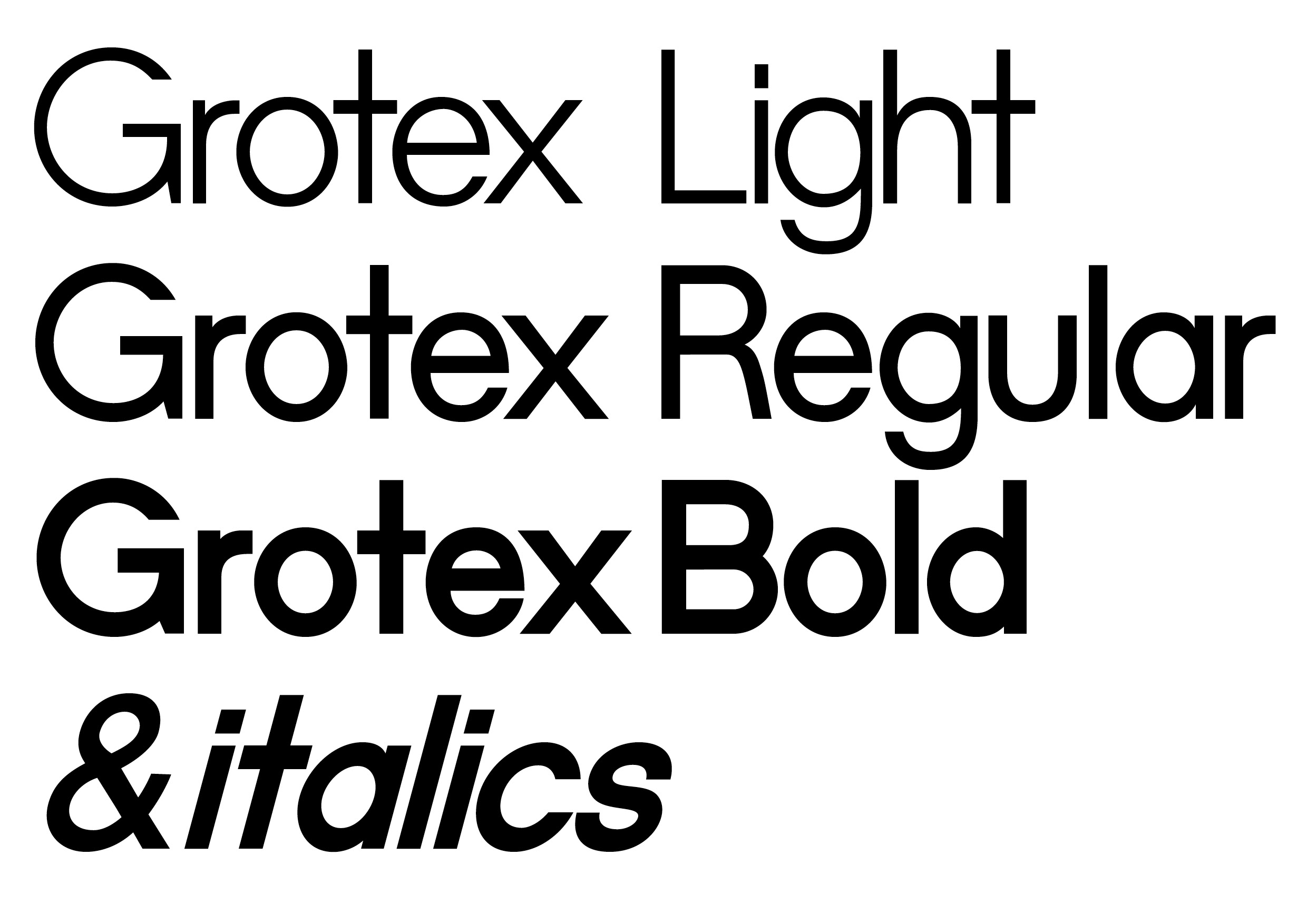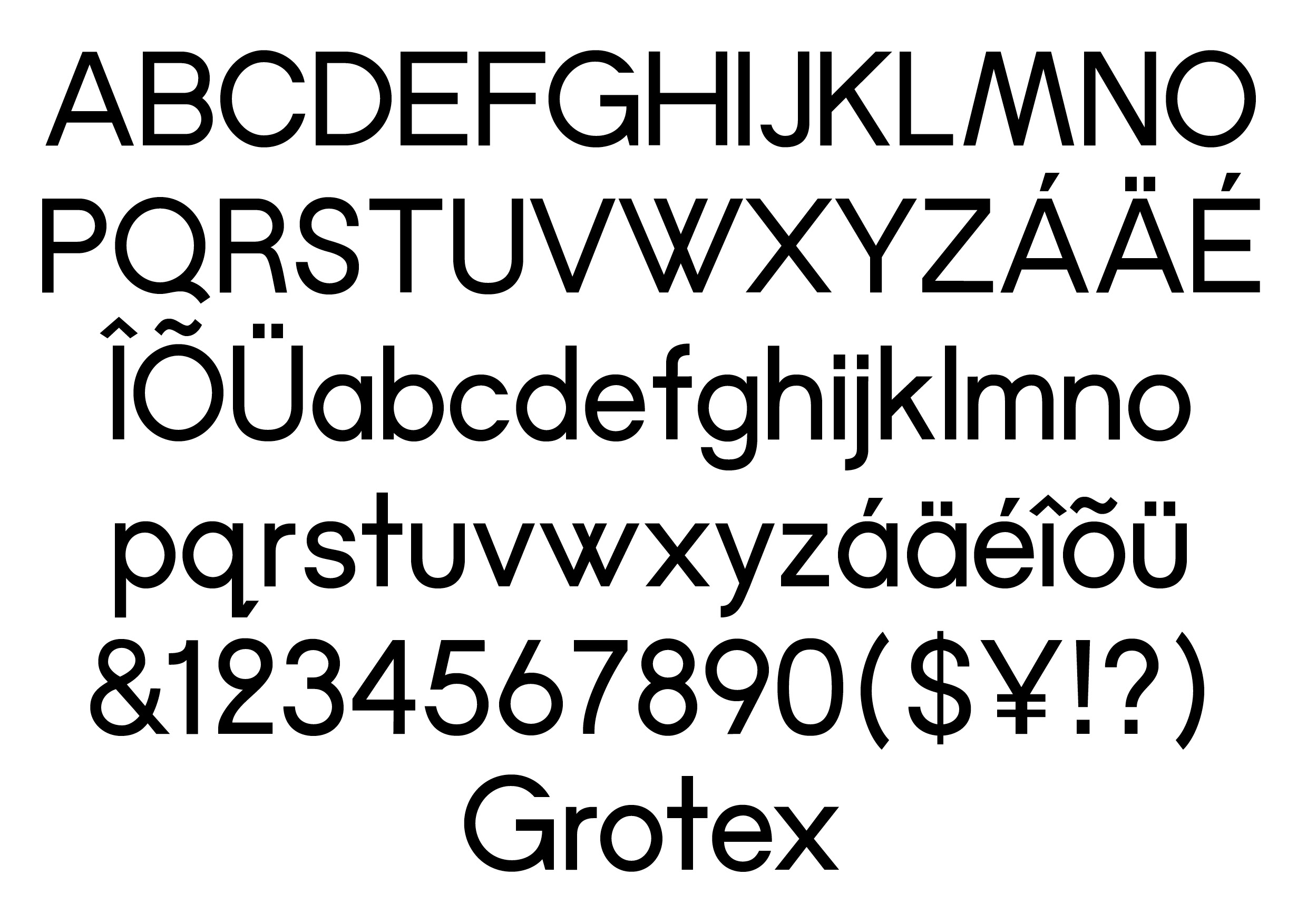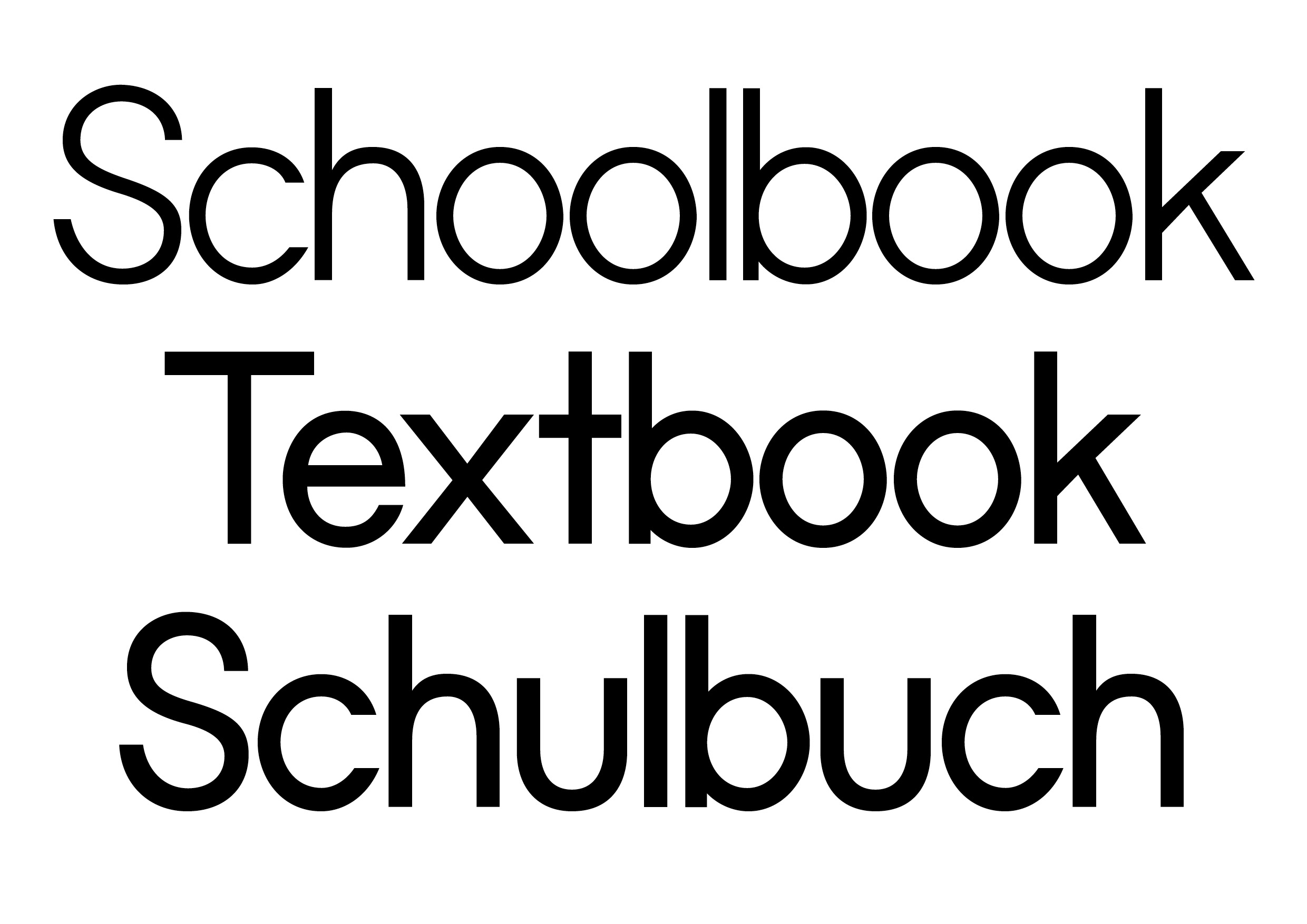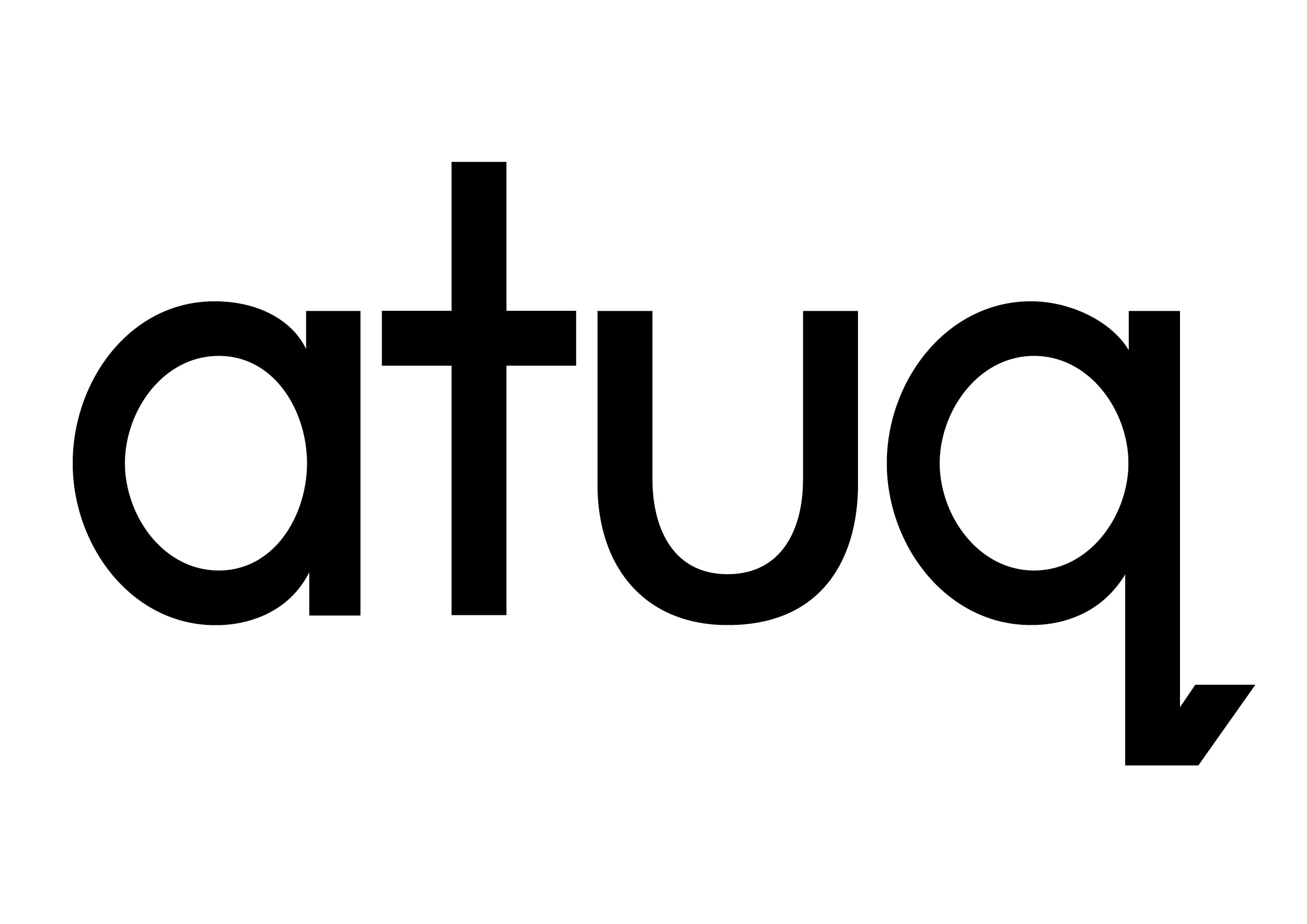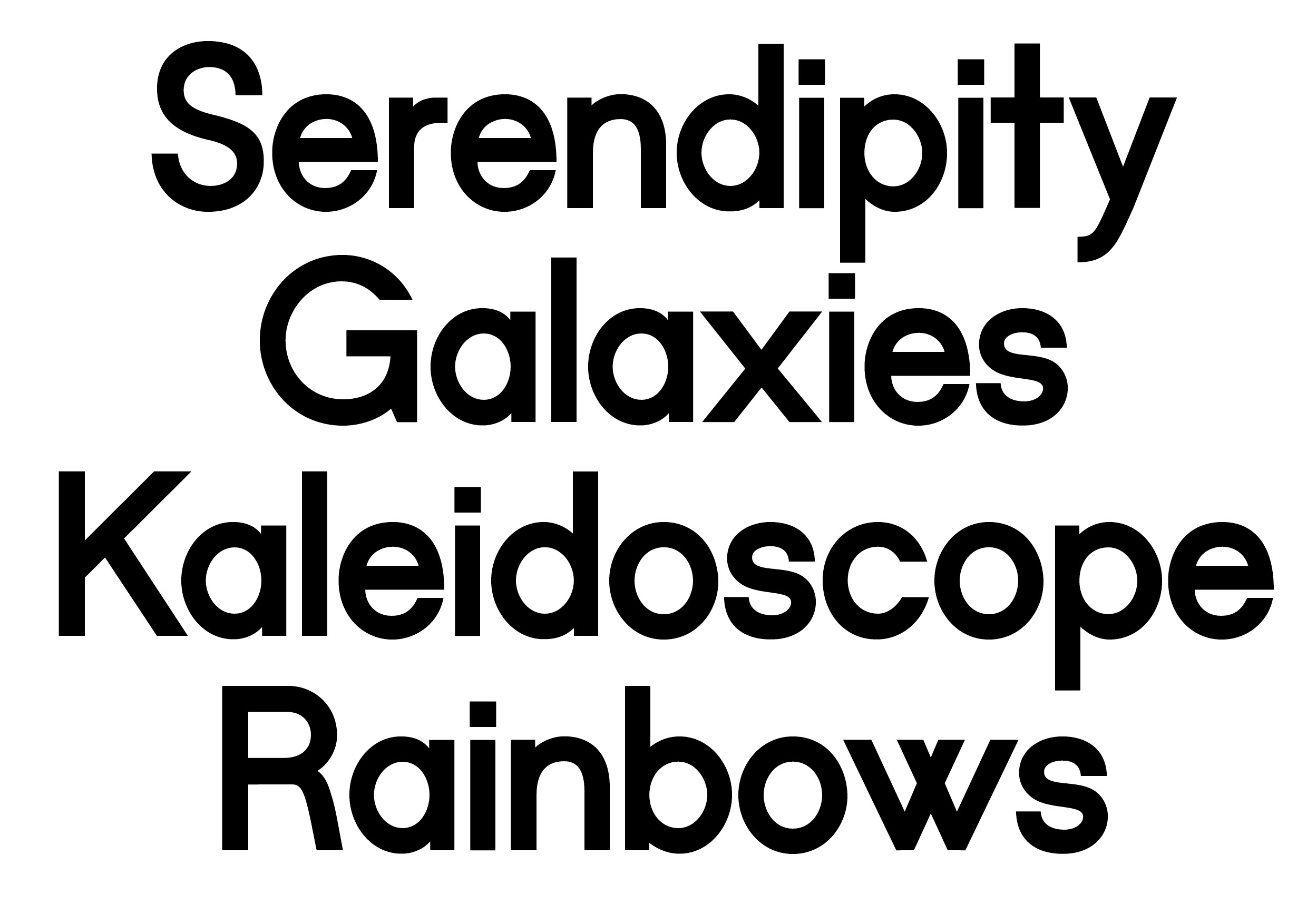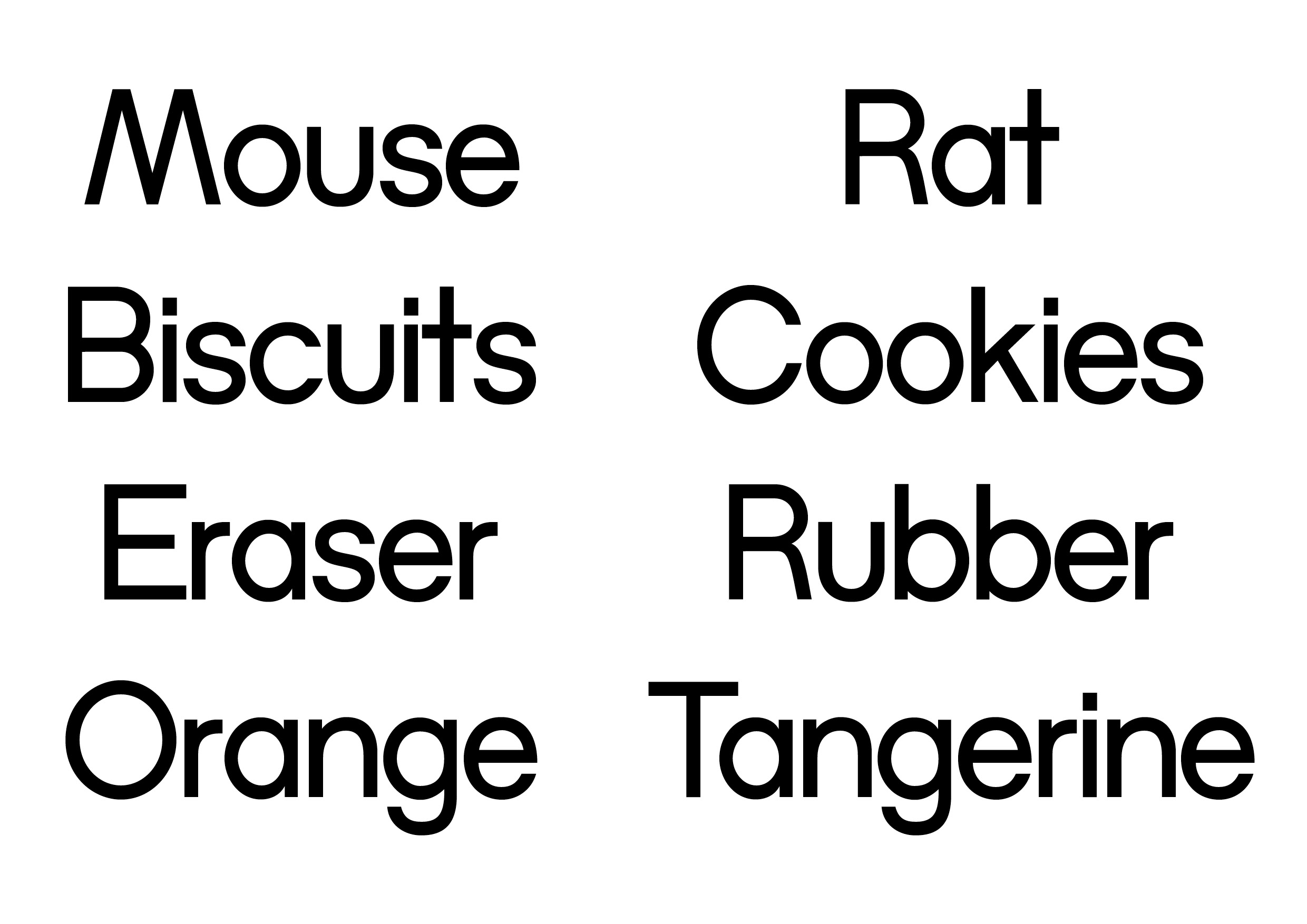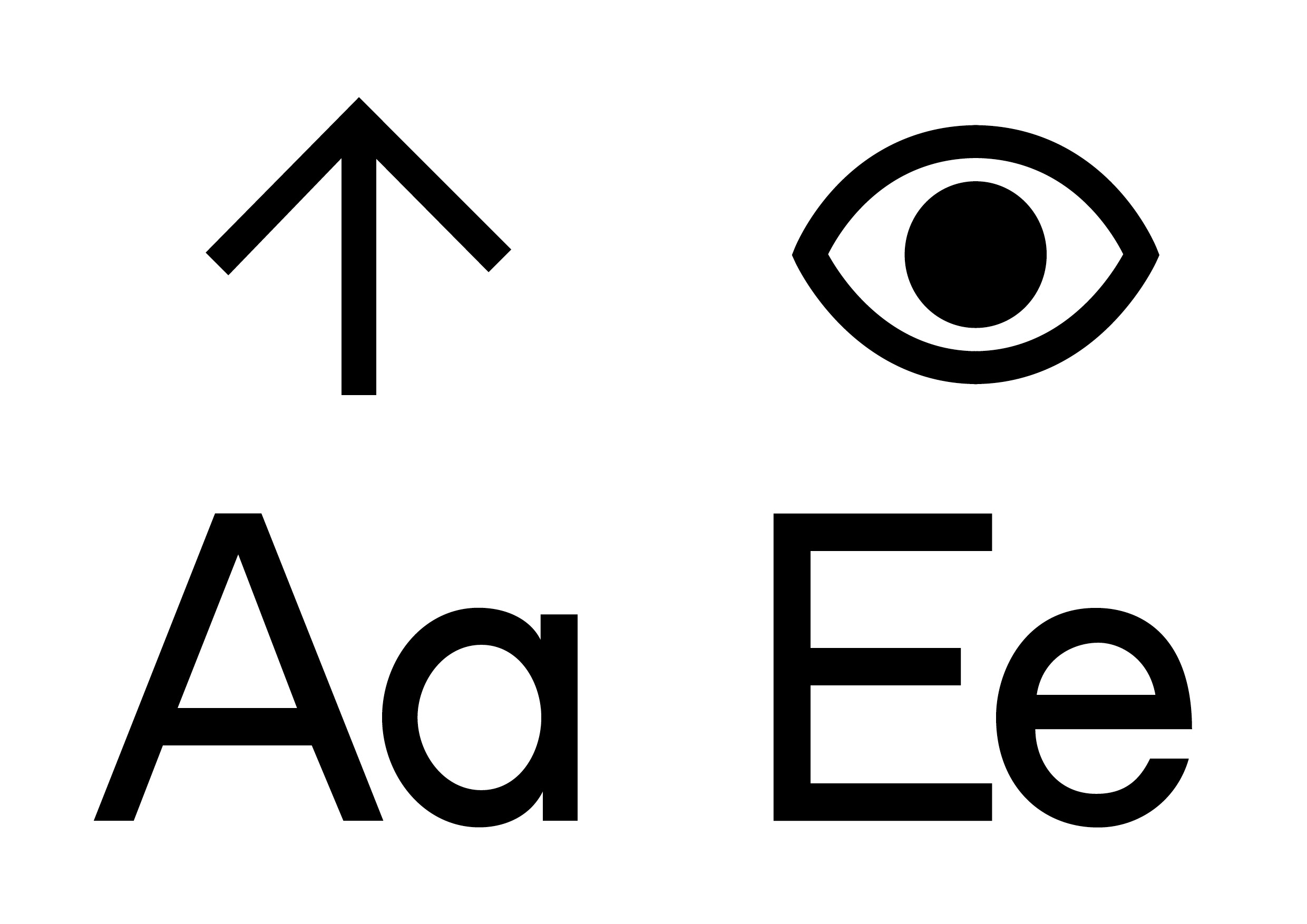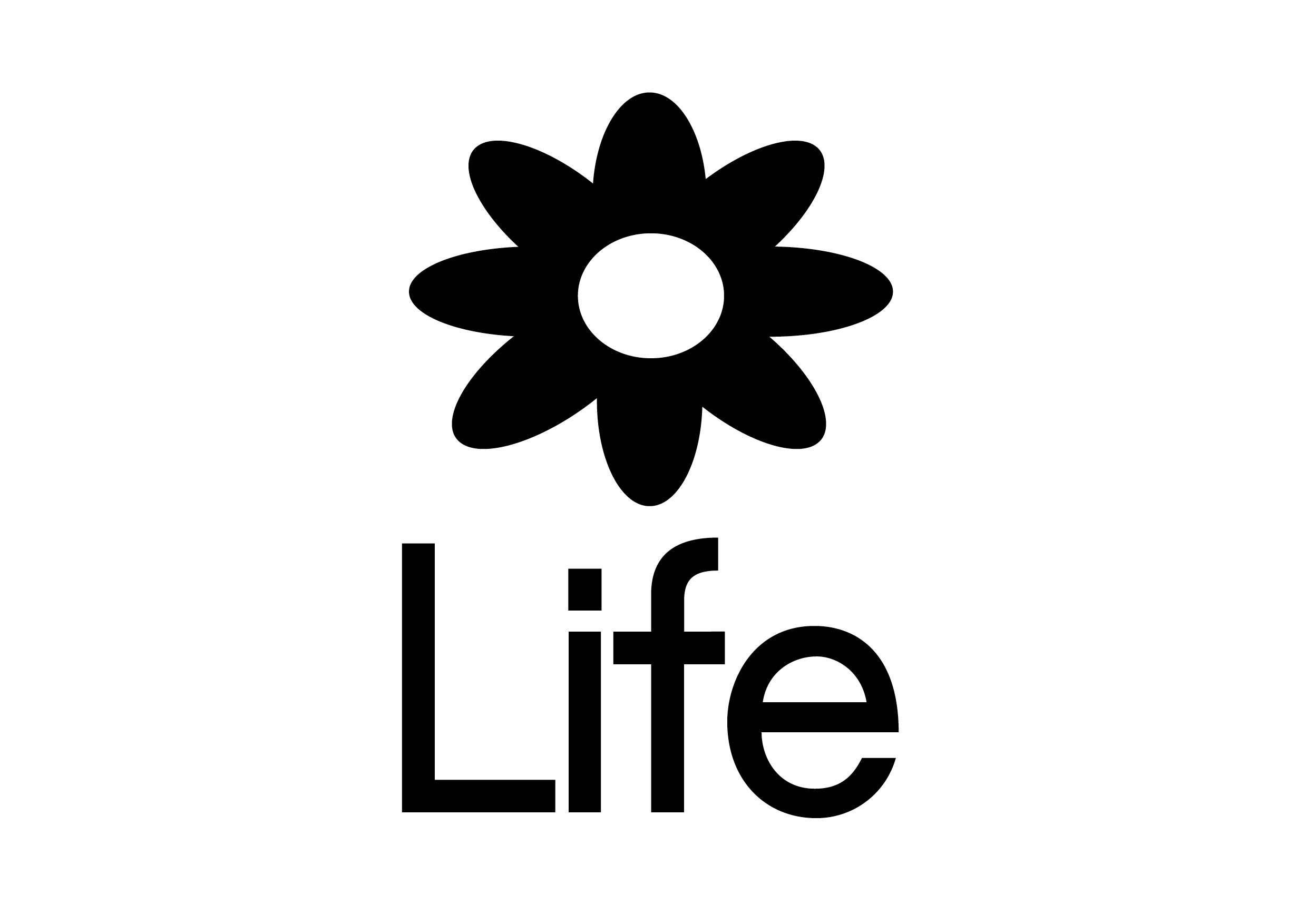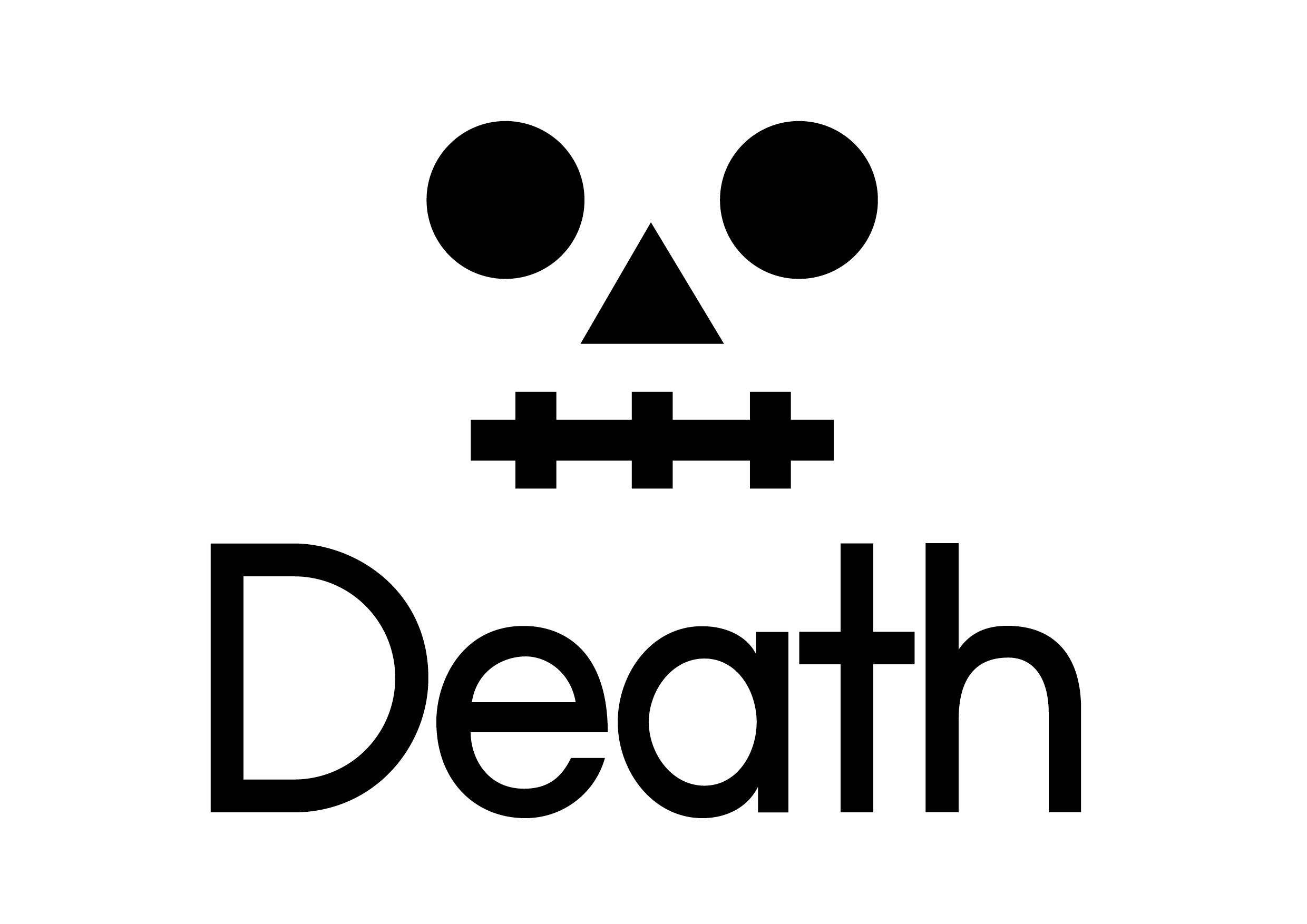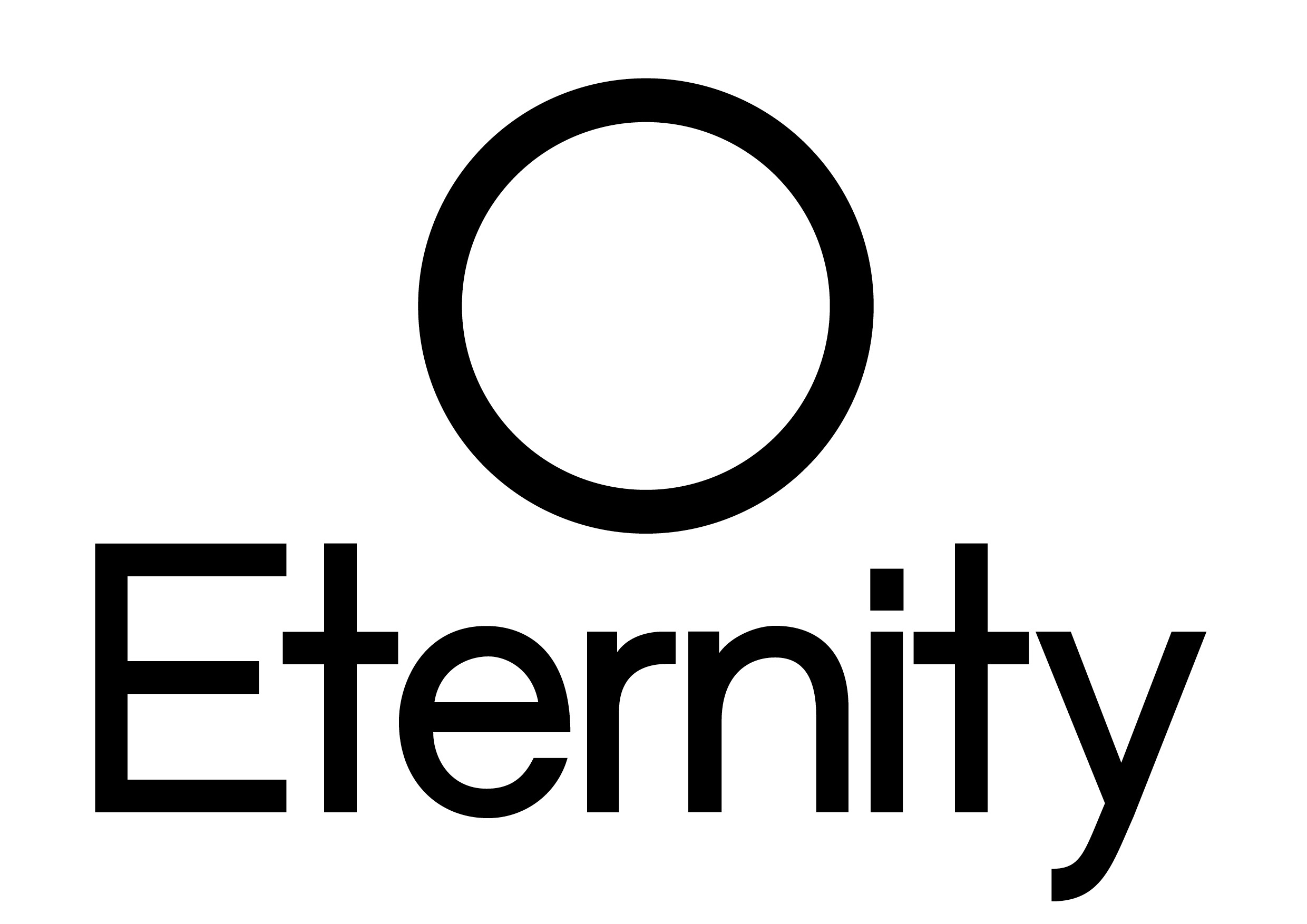
Grotex Sans
Grotex Sans is a modern typeface that pays homage to the charm of old-school books. Inspired by the typefaces once used to teach children how to draw sans serifs, it carries a sense of familiarity and nostalgia while maintaining a robust, contemporary design. It captures the essence of the past while embracing the possibilities of the present, shining with versatility across headlines, body text, and display. Timeless yet fresh, Grotex Sans blends memory with modernity, offering warmth, clarity, and a distinctively human touch.